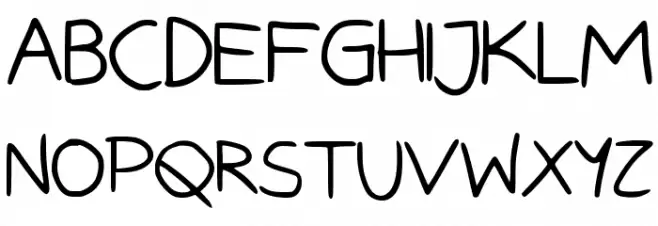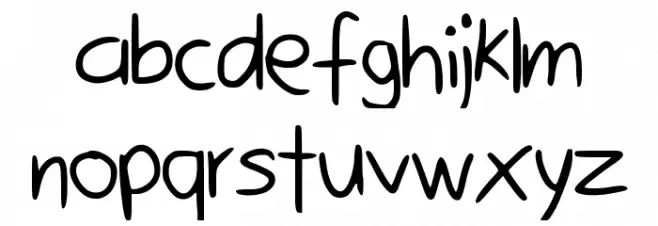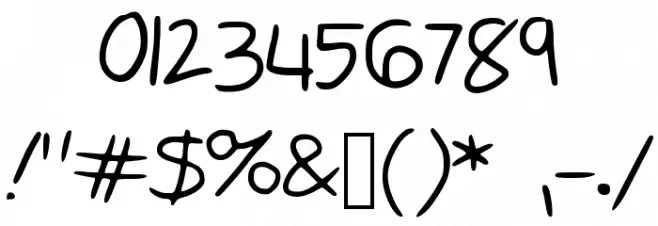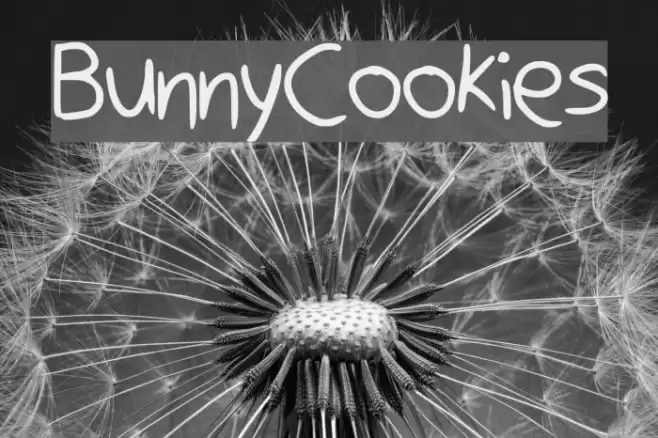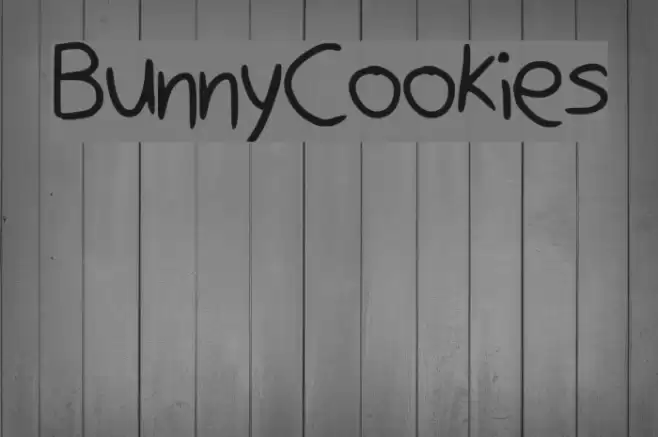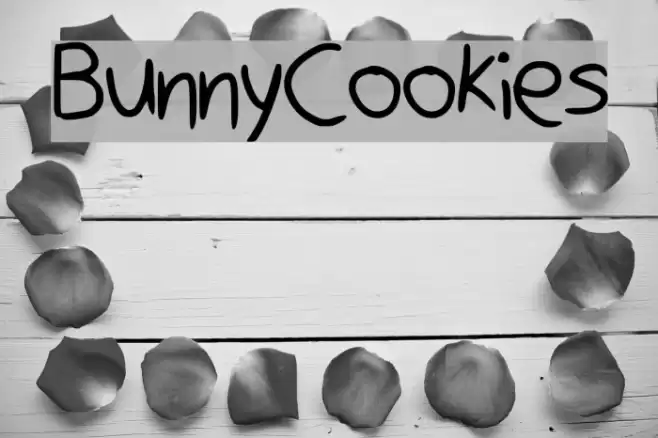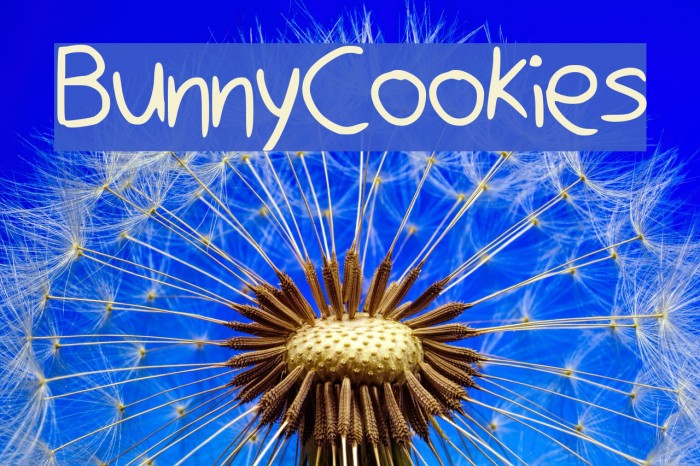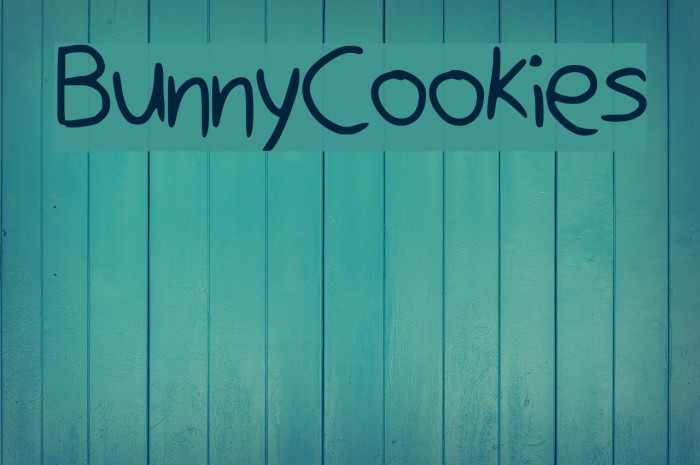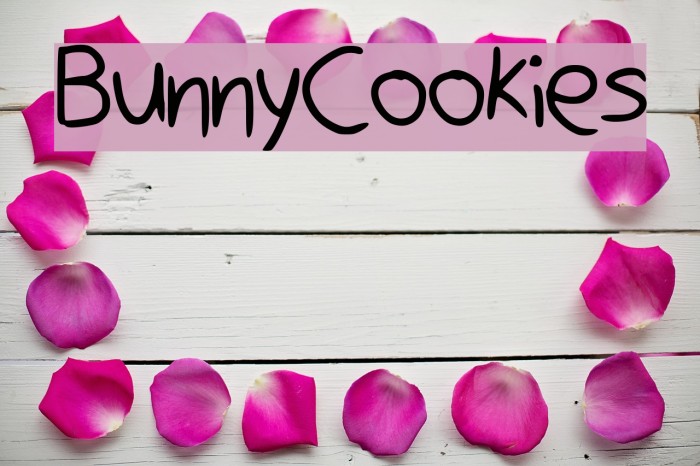
BunnyCookies
This playful and whimsical font features a handwritten style with smooth, rounded edges and a casual appearance. The characters are slightly irregular, adding a personal touch that feels both friendly and approachable. The uppercase and lowercase letters maintain a consistent flow, while the numerals and special characters complement the overall aesthetic. The font's informal nature makes it ideal for projects that require a touch of fun and creativity. Its legibility is maintained despite the playful design, making it suitable for a variety of uses.
A playful, handwritten font with smooth, rounded edges and a casual style.
- Proposed Projects: Ideal for children's books, greeting cards, playful branding, and creative social media graphics.
- Overall Style: Playful
- Use Case: Headlines, Logos, Informal Text